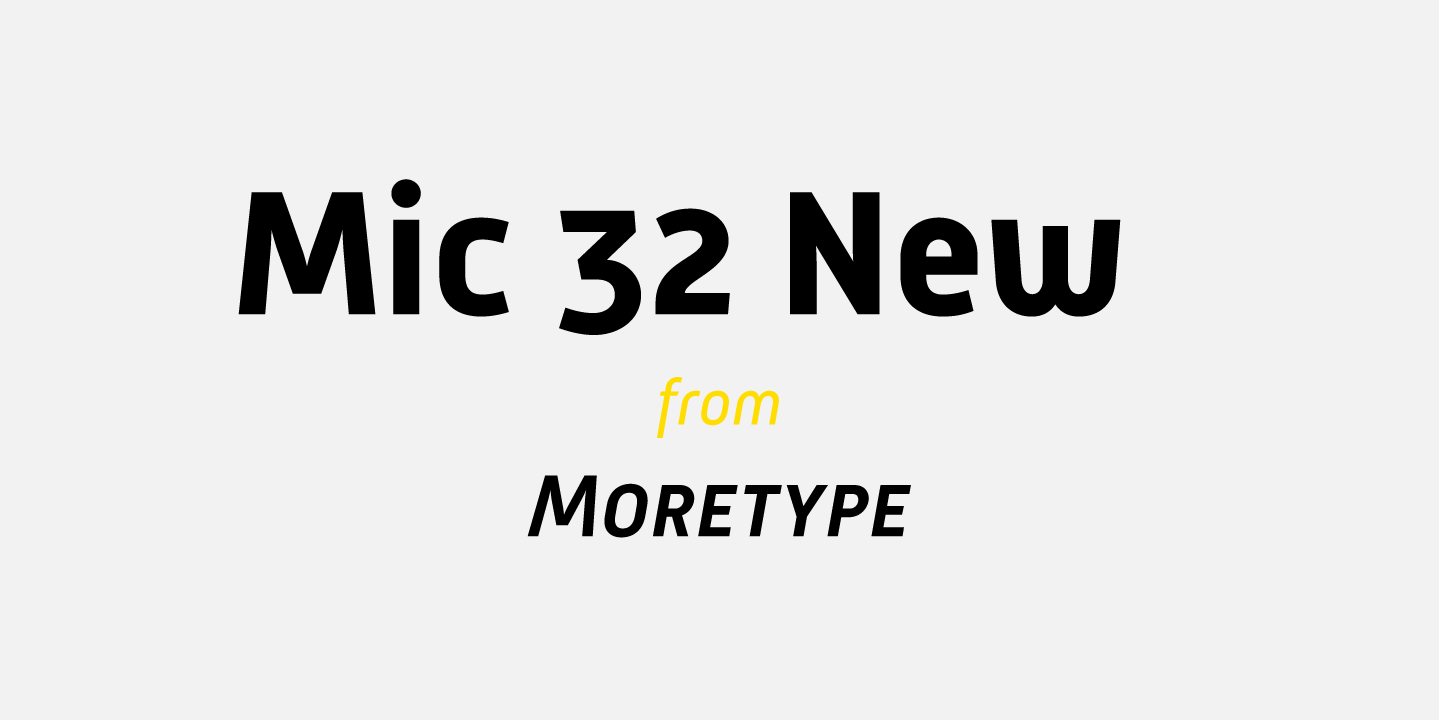
Mic 32 New Font is perfect for music industry branding, podcast logos, recording studio signage, audio equipment packaging, concert posters, radio station graphics, sound engineering materials, DJ promotional designs, music streaming interfaces, and any projects that need a professional audio-focused aesthetic.
What makes Mic 32 New Font exciting is its precision-engineered design that captures the technical excellence and professional standards of modern audio production. This sophisticated typeface features clean geometric forms with subtle audio-inspired details that reflect the clarity and precision demanded by sound professionals. The font's technical character and modern styling make it ideal for brands in the audio industry seeking to communicate expertise, innovation, and cutting-edge technology in their visual communications.
Mic 32 New Font family includes comprehensive technical variations featuring light, regular, medium, bold, and black weights. The font family also offers condensed and extended versions optimized for different display requirements, along with italic variants and special character sets. Additional features include audio-themed symbols, technical ornaments, and specialized glyphs designed specifically for professional audio applications and music industry branding.